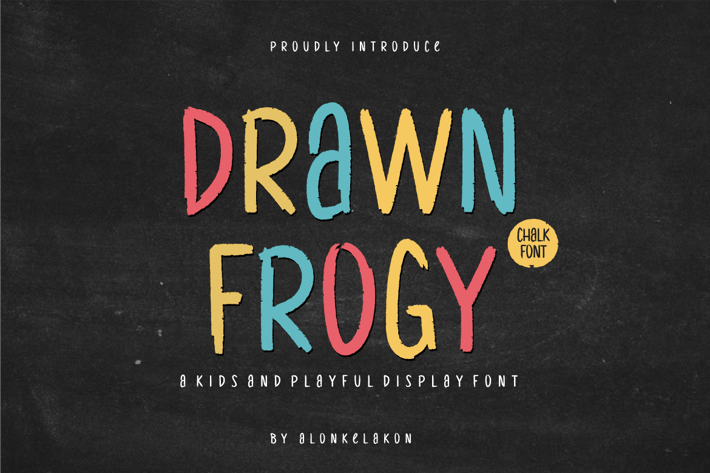
Drawn Frogy Kids Font
Drawn Frogy Font is unique . Ready to use for your design like labeling, movie sceen, poster, movie title, gigs, album covers, logos, and much more.